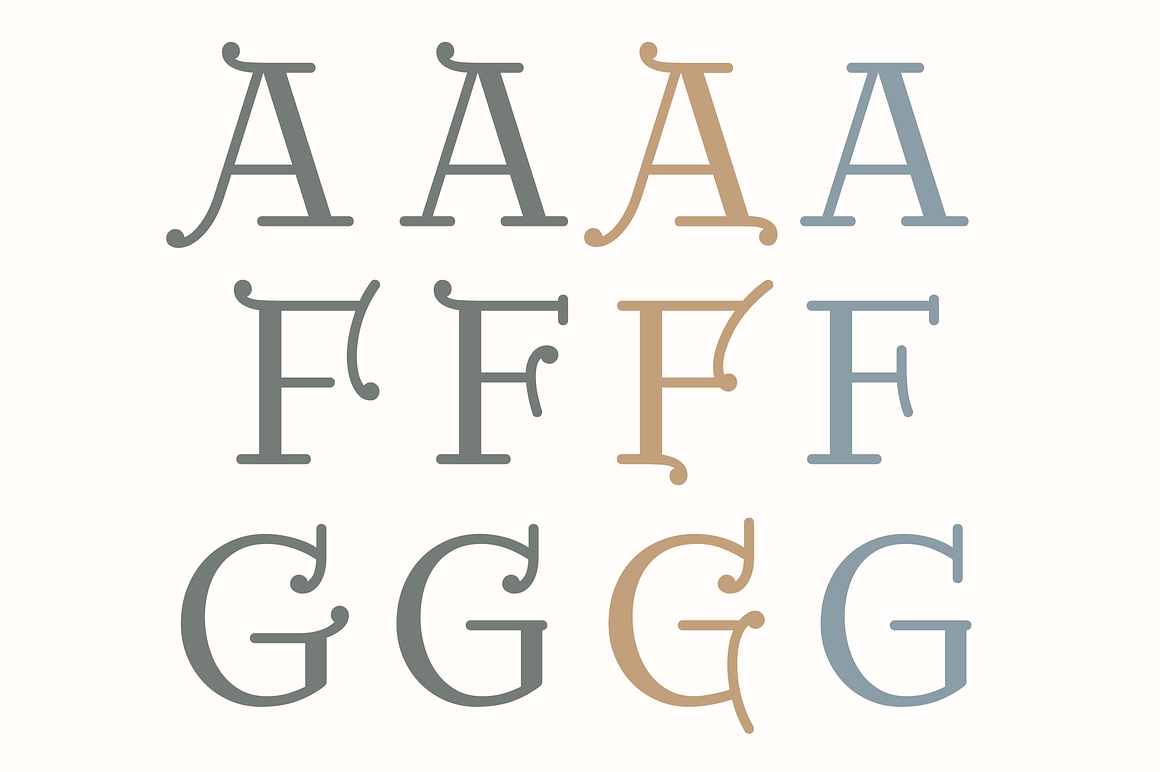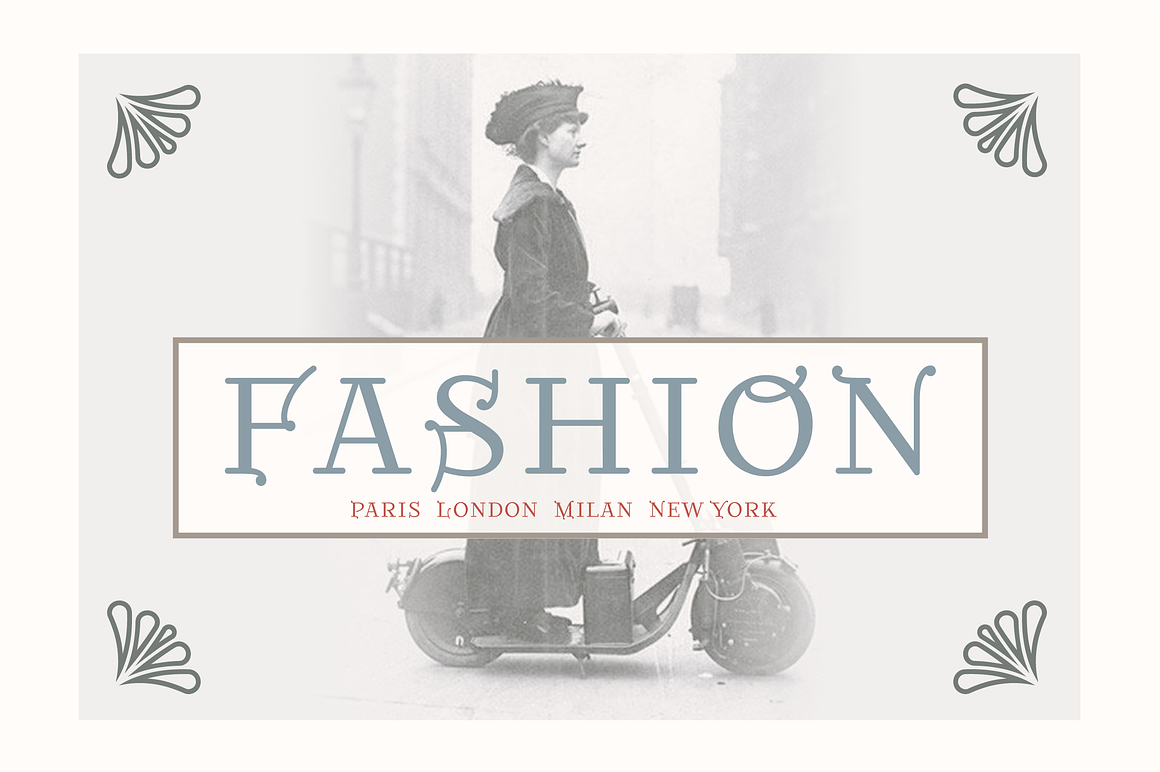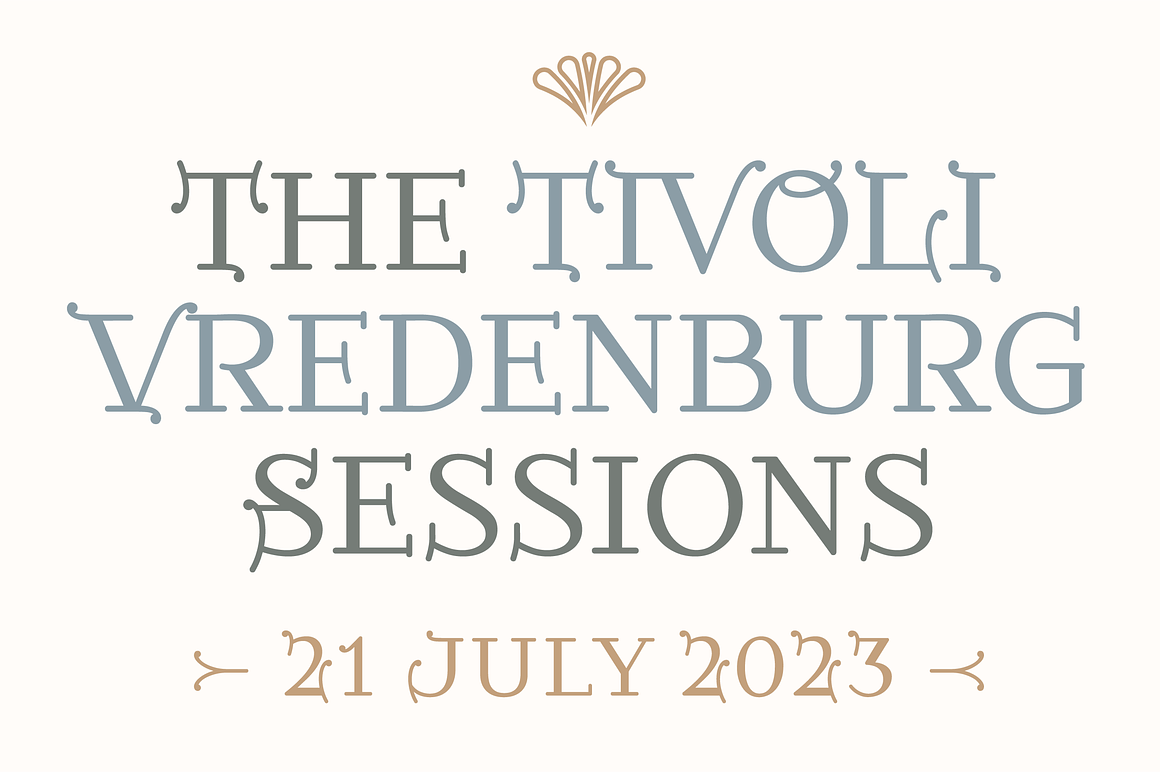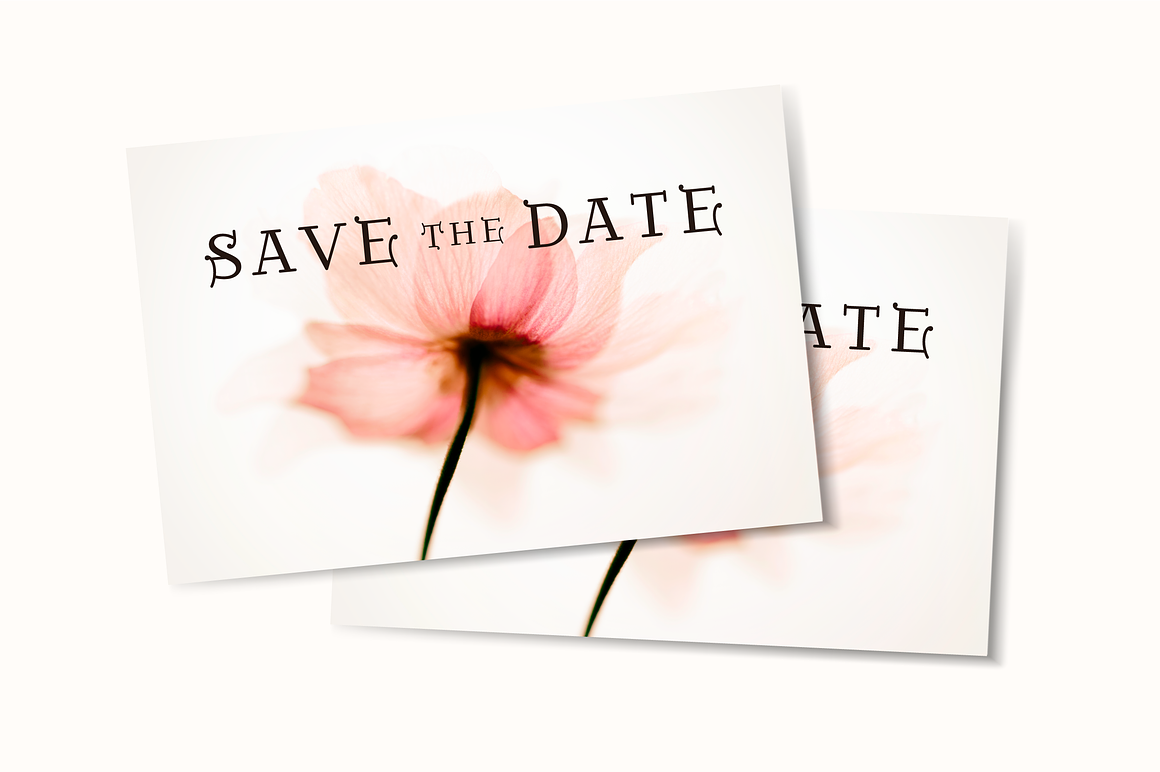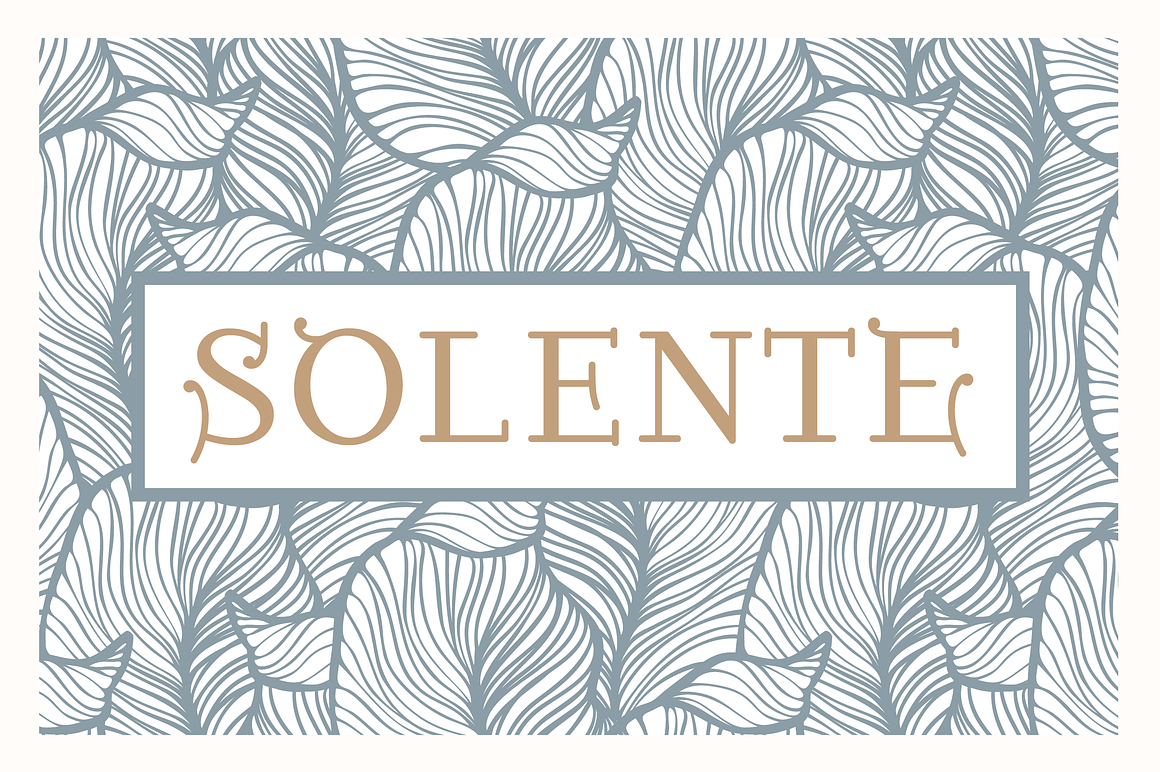
Solente Nouveau Font
Solente Nouveau Font is ideal for high-end branding, fashion editorials, luxury product packaging, wedding invitations, and artistic poster designs. It’s especially well-suited for projects that require a refined and stylish visual presence, both in print and digital platforms.
What makes Solente Nouveau Font exciting is its elegant Art Nouveau-inspired curves blended with a contemporary touch. The sophisticated flow of each letterform gives your design a timeless charm, while its modern refinements keep it relevant and fresh.
The Solente Nouveau Font family includes Regular, Bold, Italic, and Decorative styles, offering a versatile range for various creative applications. Whether you want to make a statement with bold titles or add a graceful touch to body text, this font family delivers.